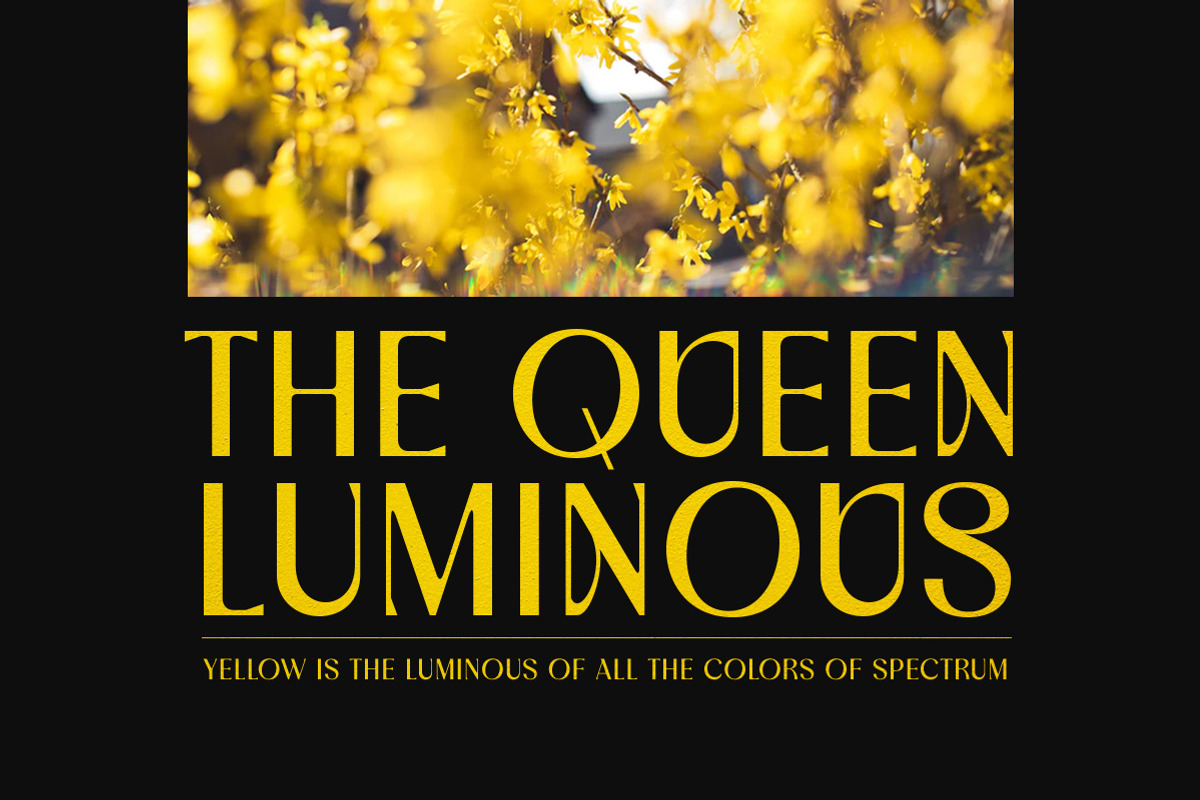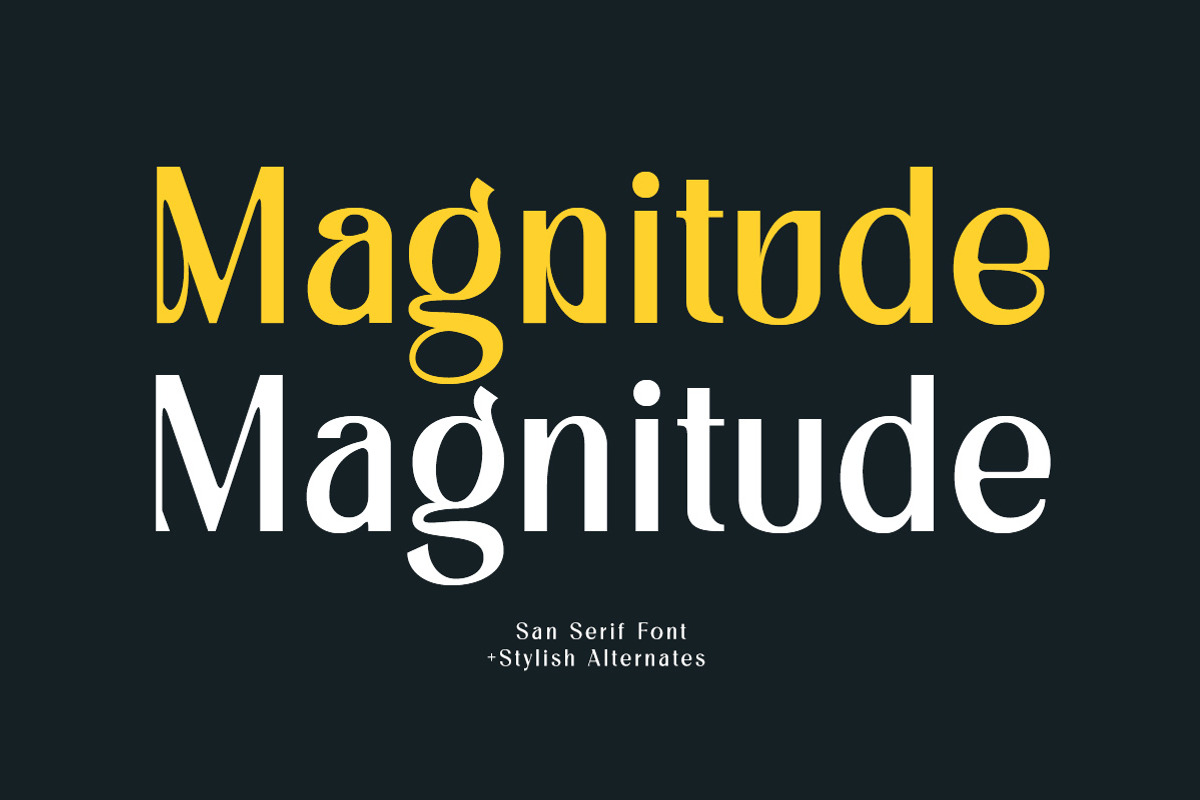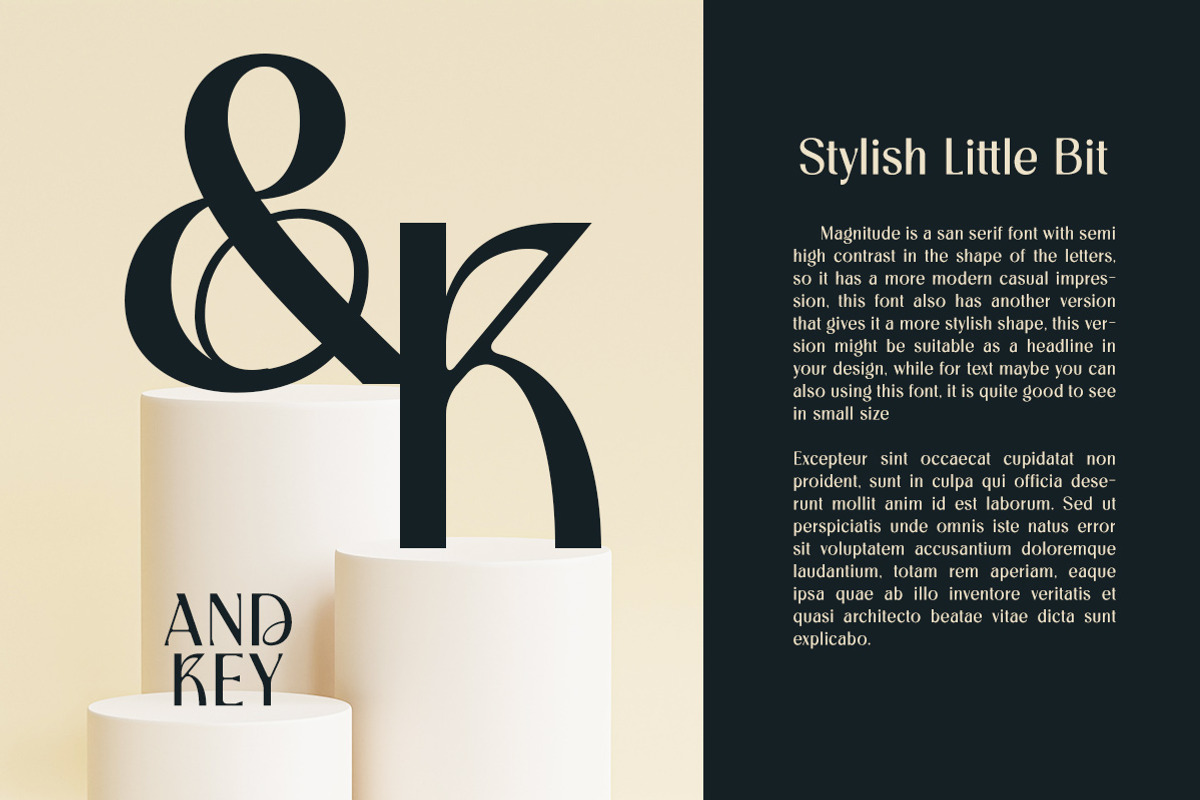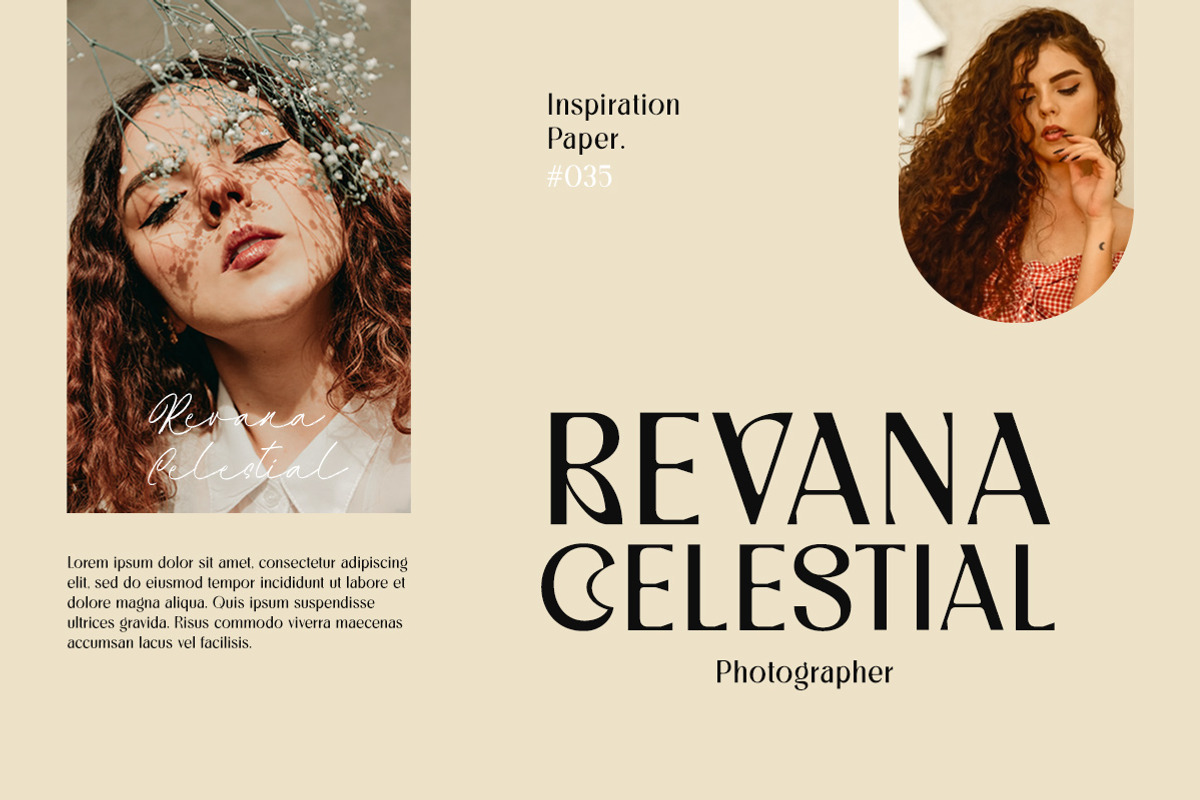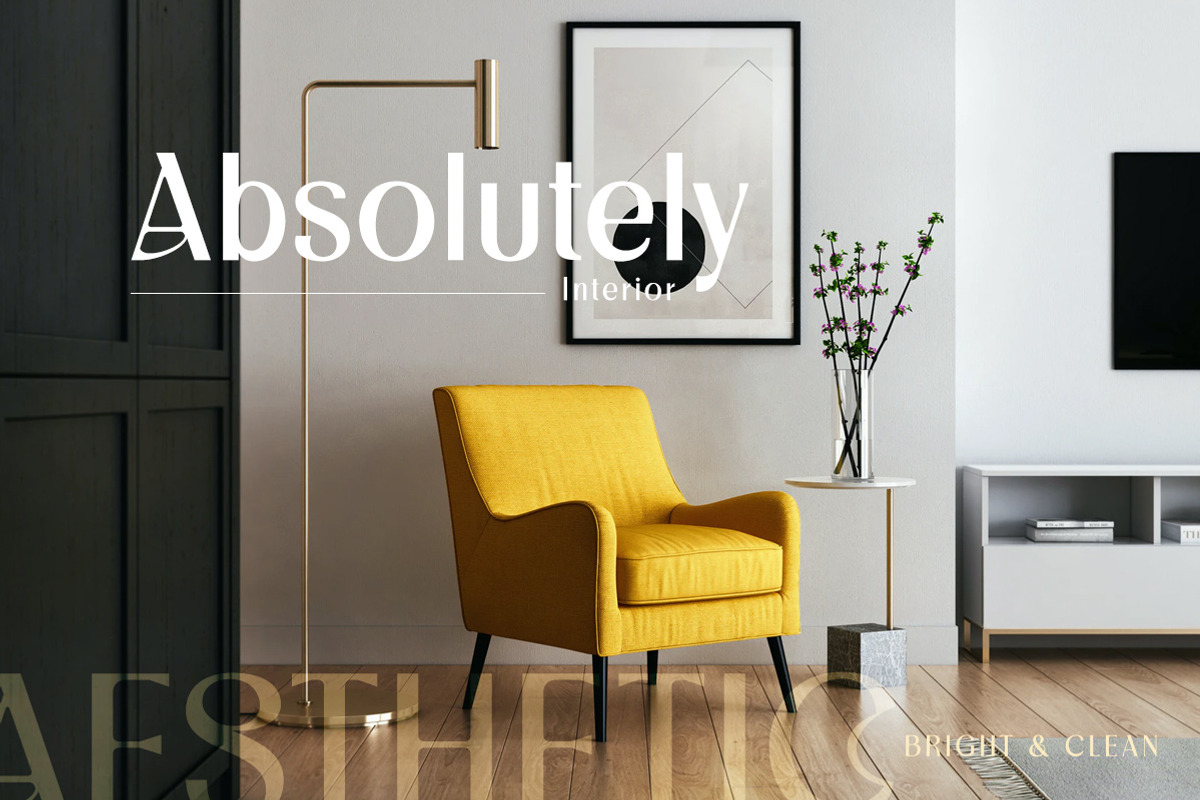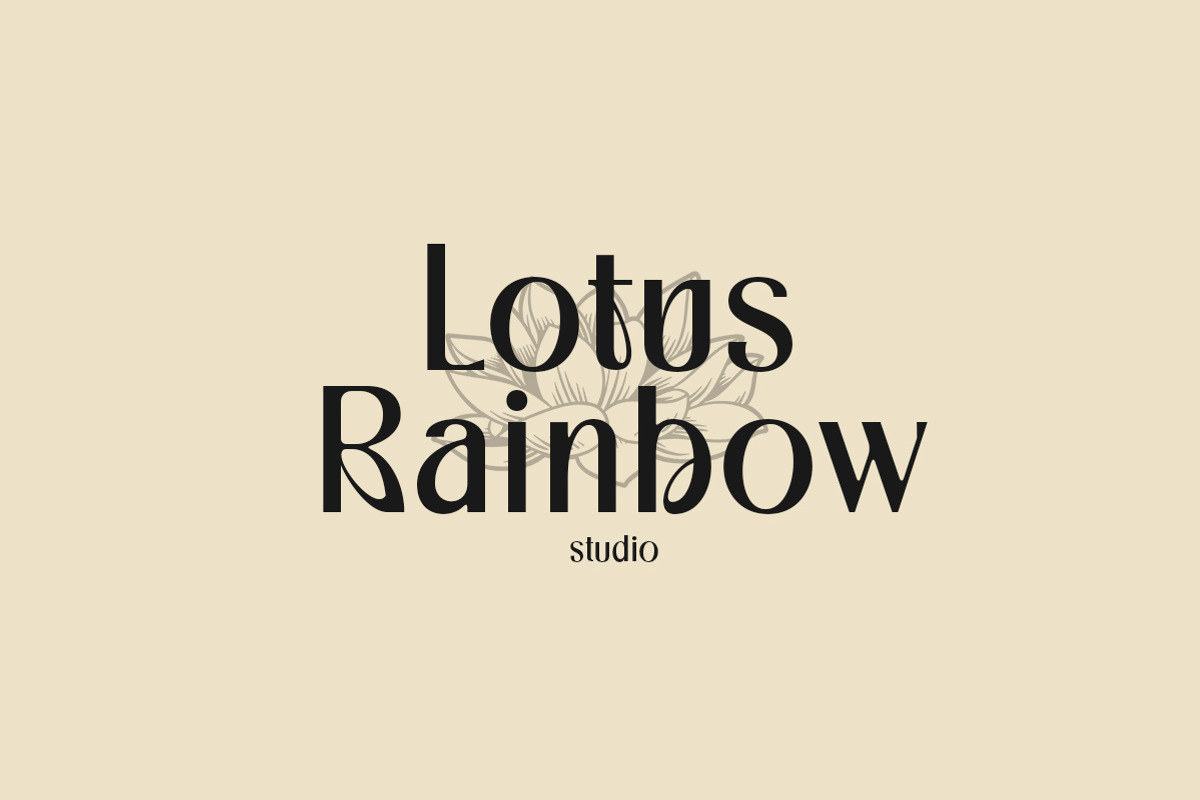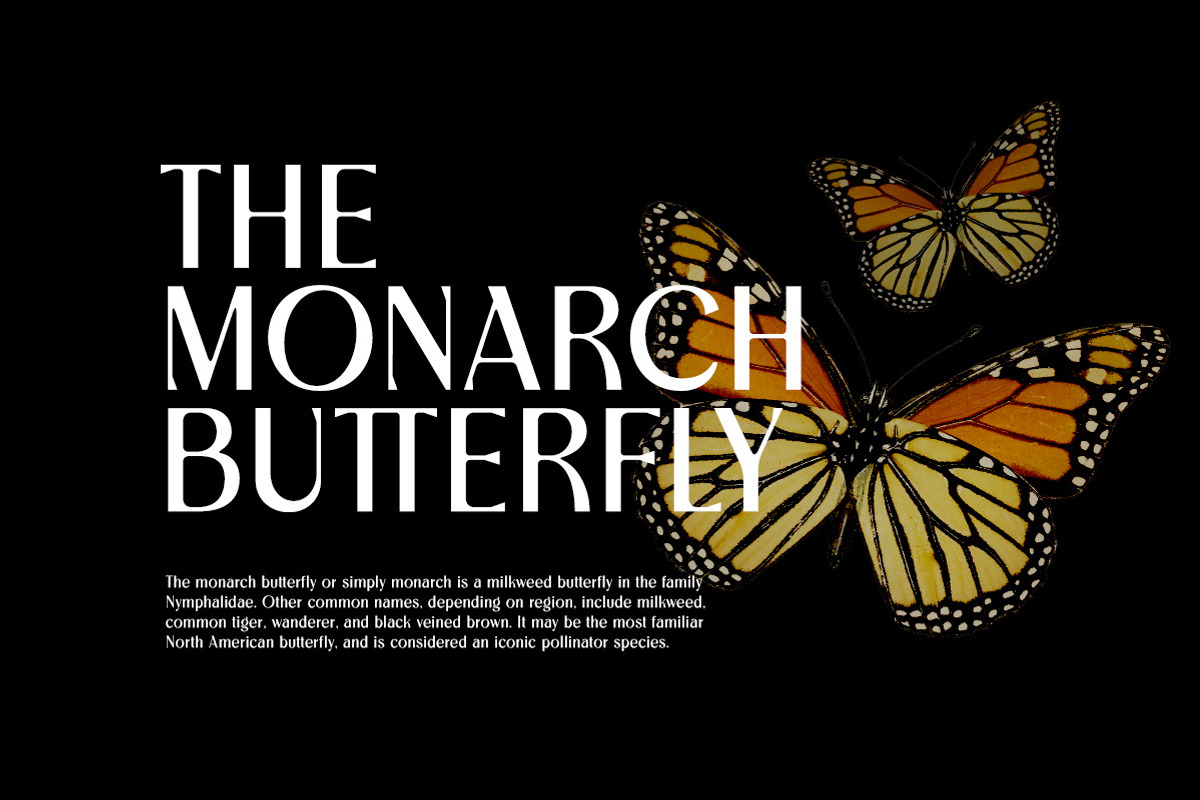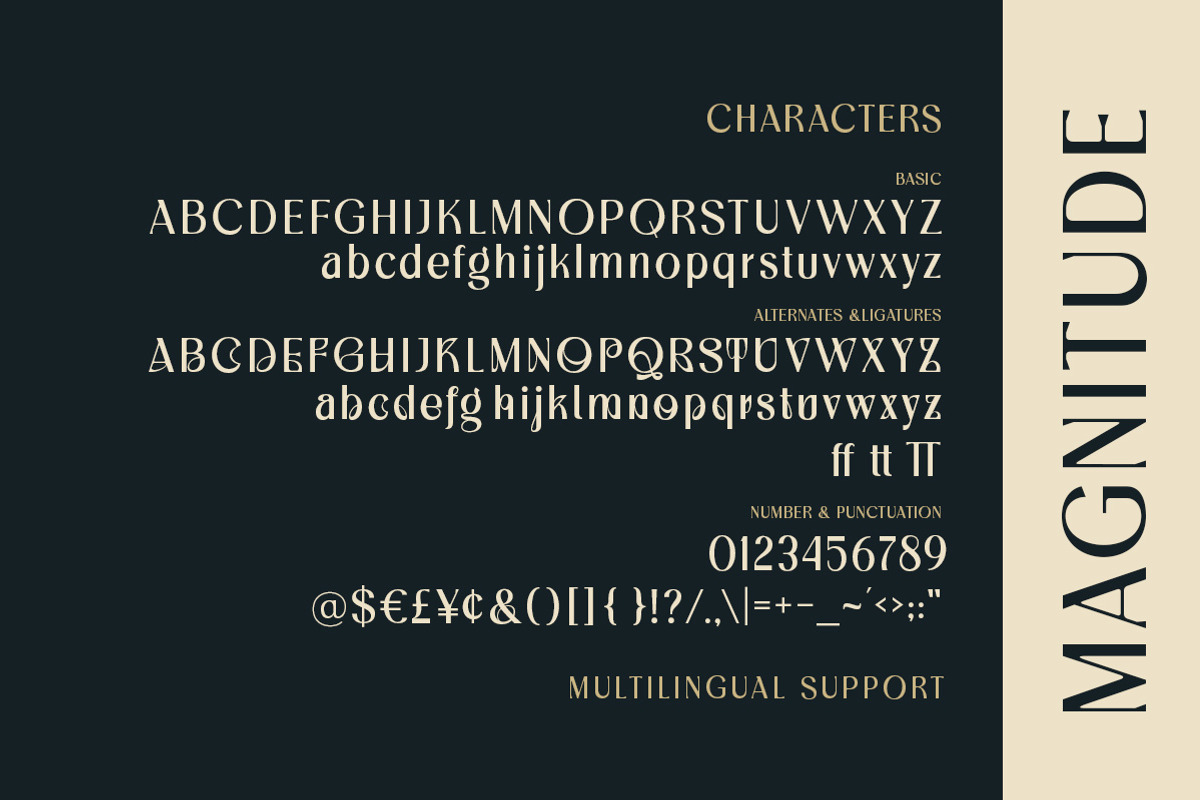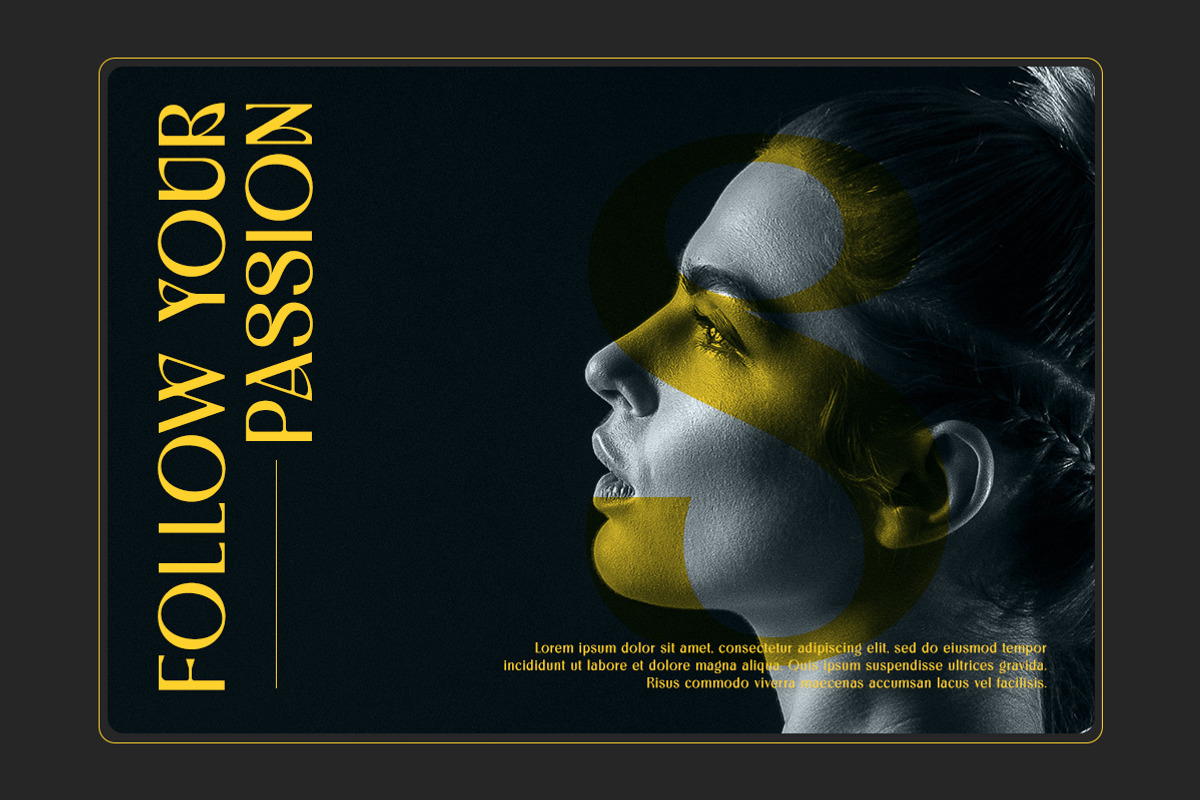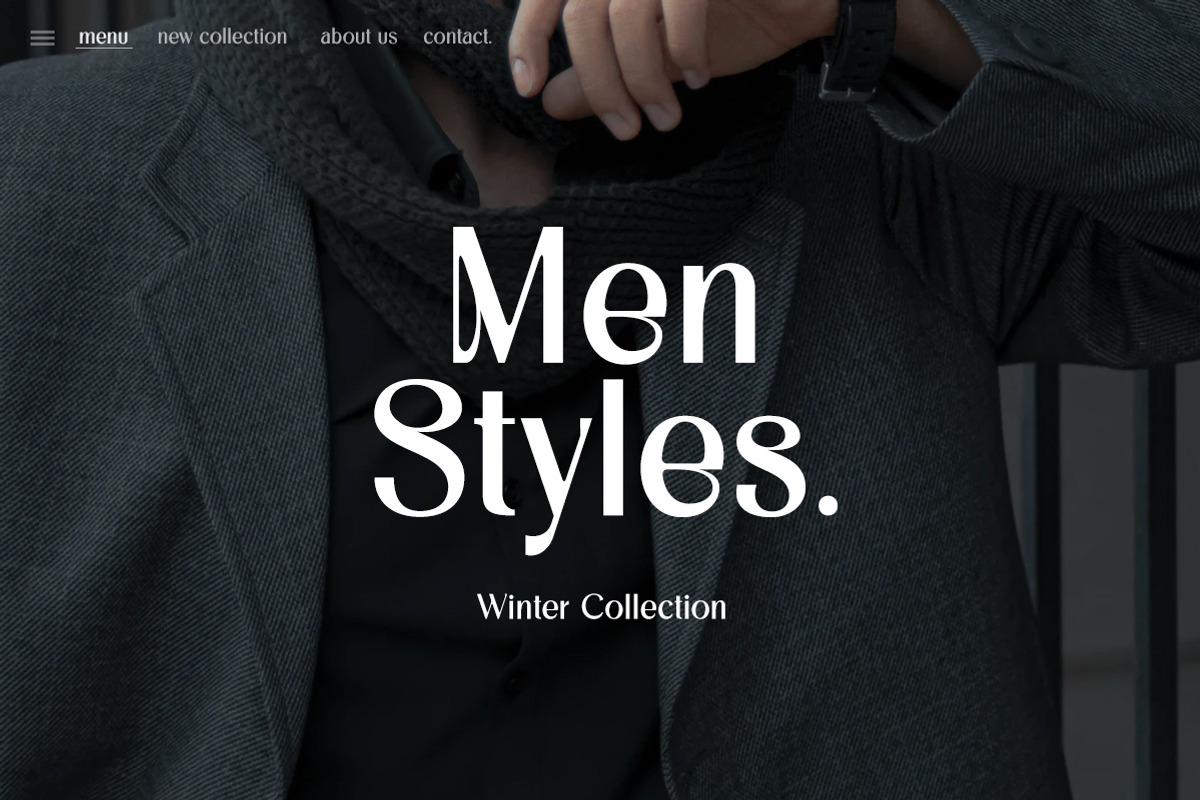
Magnitude - Stylish Sans Serif
Magnitude is a stylish sans serif font with unique letterform. The style make this font looks great and standout for tittle, headline, logo, etc. Perfectly to be applied to the other various formal forms such as invitations, labels, logos, magazines, books, greeting / wedding cards, packaging, fashion, make up, stationery, novels, labels or any type of advertising purpose.
- alternates & ligatures